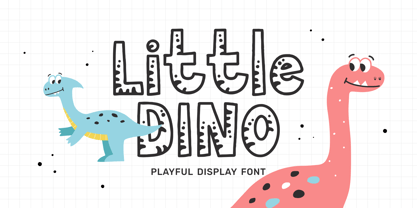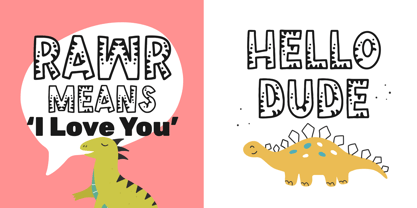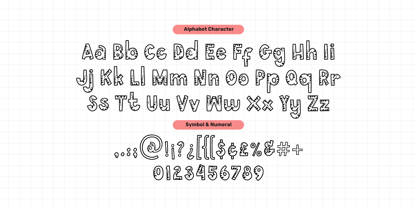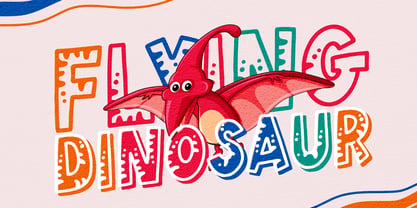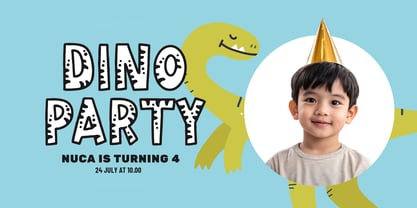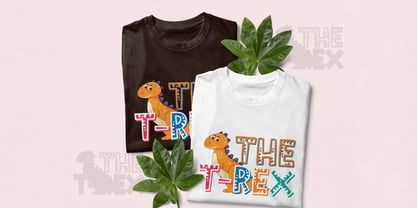
Little Dino
A família de fontes Little Dino foi desenhada por Aulia Savira Putri e publicada pela Imoodev. Little Dino contém 1 estilos. Saiba mais sobre esta família
Roar into your next creative project with Little Dino, a fun and energetic display font that's bursting with prehistoric personality! Perfect for anything aimed at kids, this font brings a playful, hand drawn feel to your designs. Each character has a charmingly imperfect, slightly wavy outline, reminiscent of something carved from stone or drawn with a child's enthusiastic hand. What makes this font truly special is the decorative detailing within each letter. Every character is a mini work of art, filled with a unique combination of playful patterns: Playful Dots: Many letters are filled with scattered dots, adding a fun, textured look. Quirky Lines: You'll find letters with internal horizontal lines or rugged zig-zag that give them a tribal or fossil like feel.